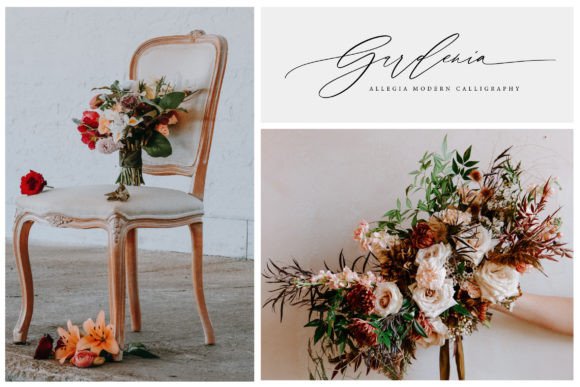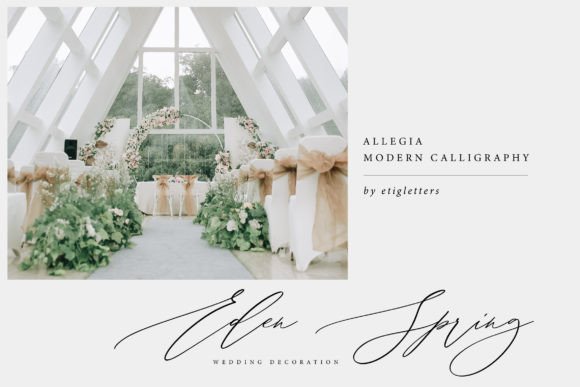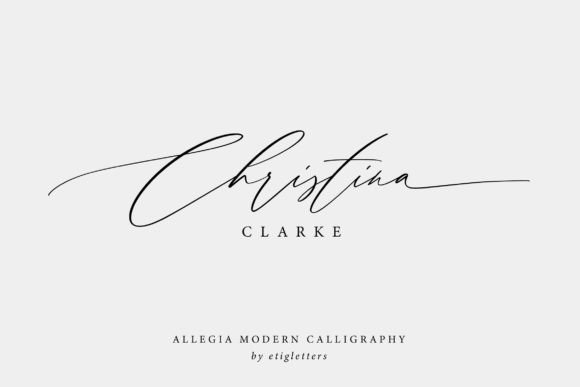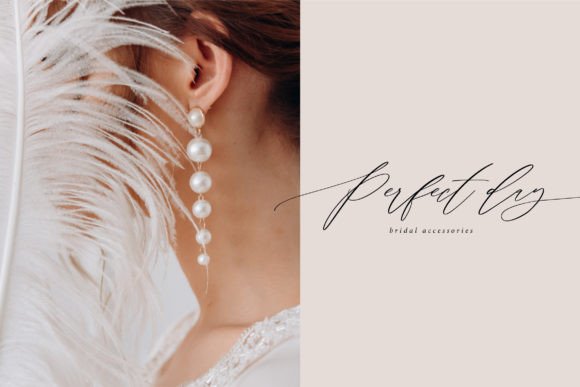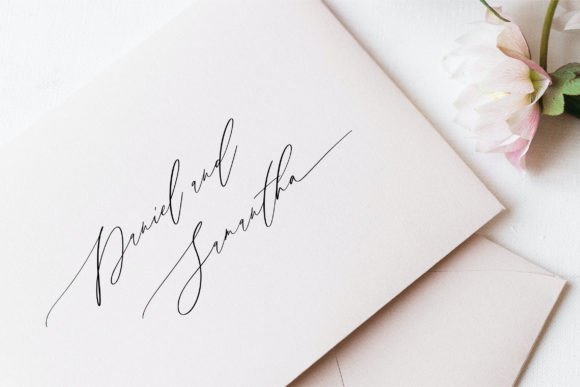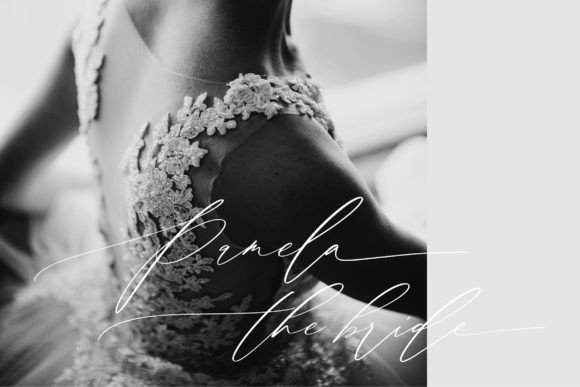
Introducing Allegia Font: Elevate Your Design with Elegant Handwriting
Have you ever been in the middle of a design project, and suddenly, you just can’t seem to find the right font? I recall a particularly frustrating moment when I was working on a wedding stationery set for a client. The design was almost complete, but the font just wasn’t doing it for me. That’s when I stumbled upon Allegia Font, a beautiful handwriting script font that completely transformed my design.
The Perfect Font for Elegant Designs
Allegia Font is a stunning handwriting script font that’s perfect for creating elegant designs, from wedding stationery to logos and branding, websites, social media quotes, and more! What makes Allegia stand out is its full set of beginning and ending lowercase swashes, which add a touch of sophistication to any design.
What I Love About Allegia Font
• ✨ Elegant and flowing handwriting style that’s perfect for formal designs
• ✅ Included with a full set of beginning and ending lowercase swashes
• ✅ Suitable for combining with sans serif fonts to create a unique design
While Allegia Font is an excellent choice for many designs, there are a few things to keep in mind:
• ⚠️ As with any script font, it may not be the best choice for body text or long paragraphs
• 🤔 Some users may find the swashes a bit finicky to work with, but trust me, it’s worth the extra effort
The Story Behind Allegia Font
Allegia Font was designed with the intention of creating a beautiful, elegant handwriting script font that would be perfect for formal designs. The designer aimed to create a font that would evoke a sense of sophistication and luxury, while still being approachable and friendly.
Q: What is Allegia Font best used for?
A: Allegia Font is best used for formal designs, such as wedding stationery, elegant logos and branding, and sophisticated websites.
Q: Does Allegia Font include swashes?
A: Yes, Allegia Font includes a full set of beginning and ending lowercase swashes, making it perfect for creating elegant, flowing designs.
Q: Is Allegia Font easy to use?
A: Yes, Allegia Font is relatively easy to use, especially if you’re familiar with working with script fonts and OpenType features.